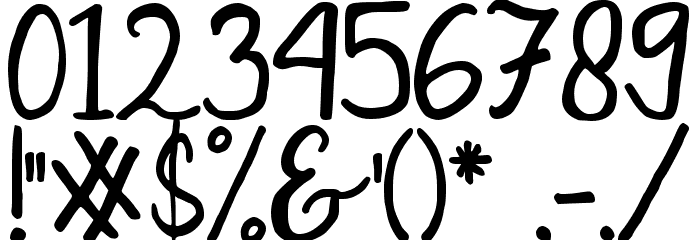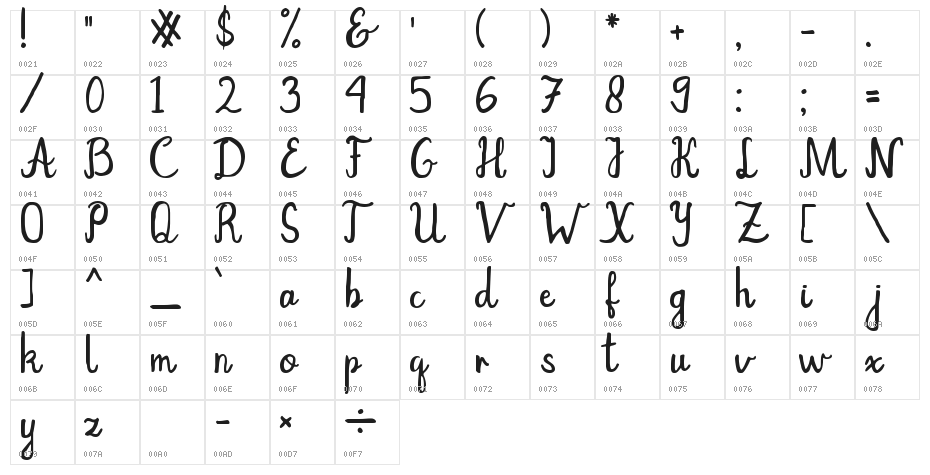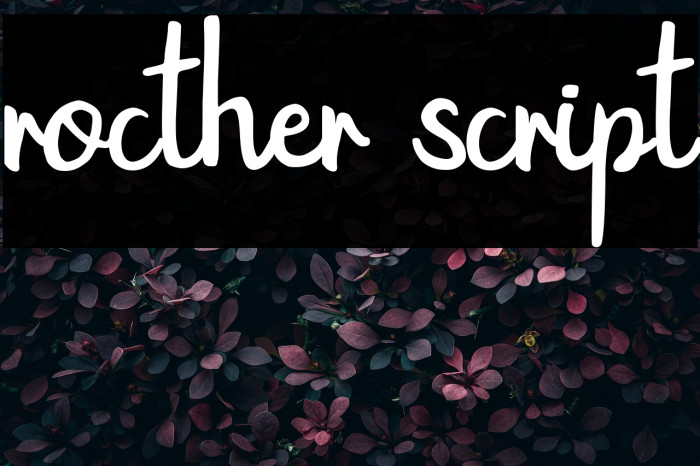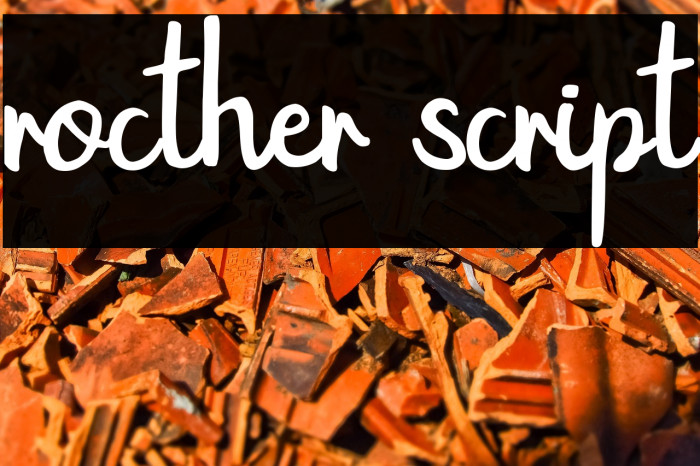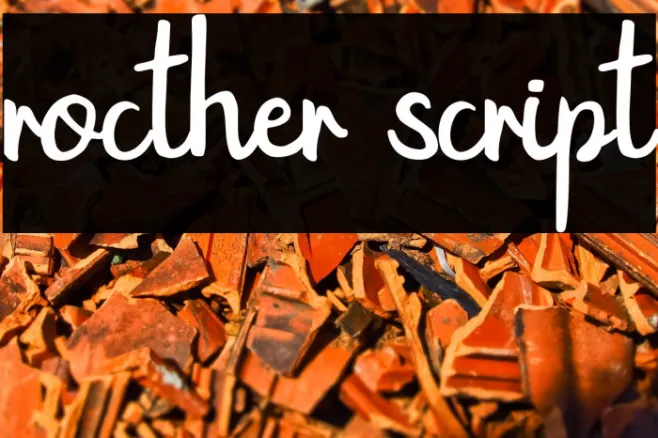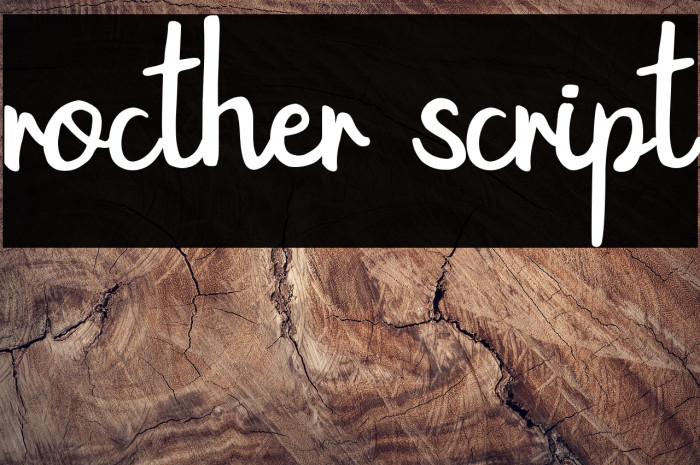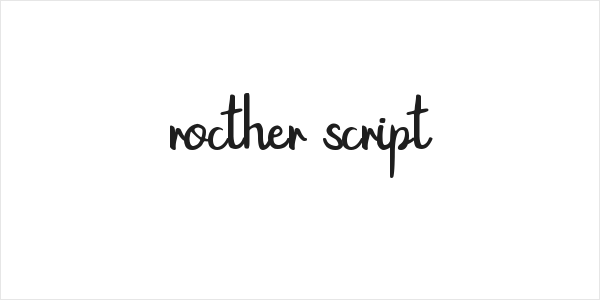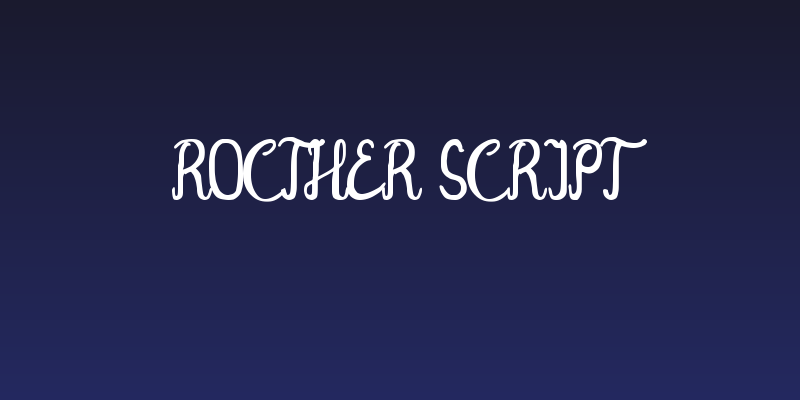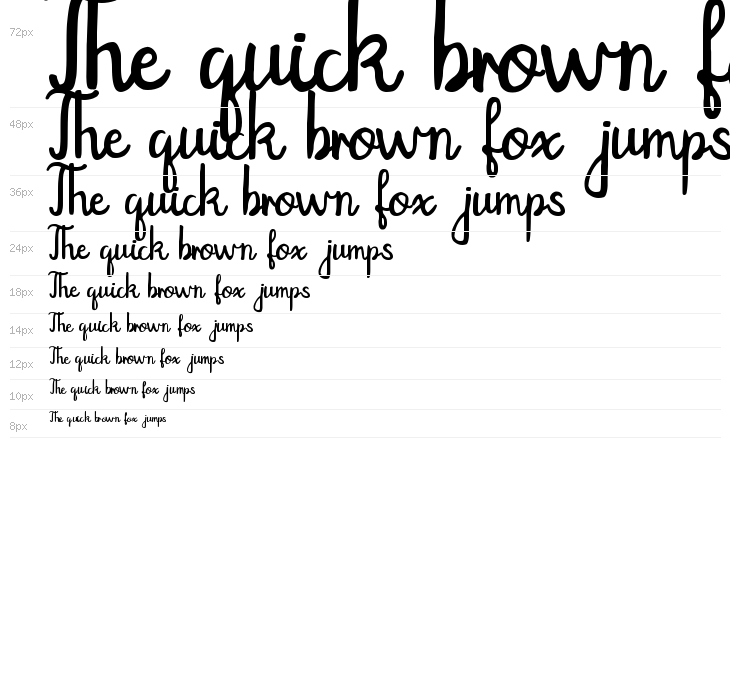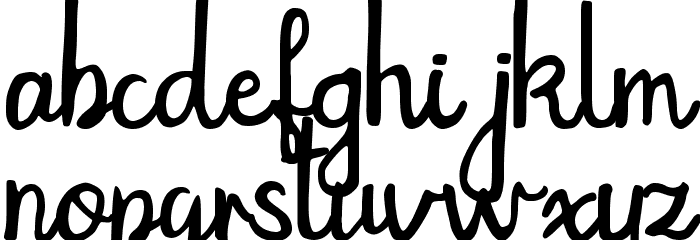
rocther script Font
rocther script Description
This font features a lively and flowing script style, characterized by its smooth, continuous strokes that mimic the fluidity of handwriting. The uppercase letters are bold and slightly whimsical, with playful loops and curves that give them a unique personality. The lowercase letters maintain a consistent flow, connecting seamlessly in a cursive manner. Numbers and special characters are designed to match the overall aesthetic, with a touch of elegance and flair. This font is ideal for projects that require a personal and artistic touch, such as invitations, greeting cards, and creative branding.
| Proposed Projects | Ideal for invitations, greeting cards, artistic branding, and creative projects. |